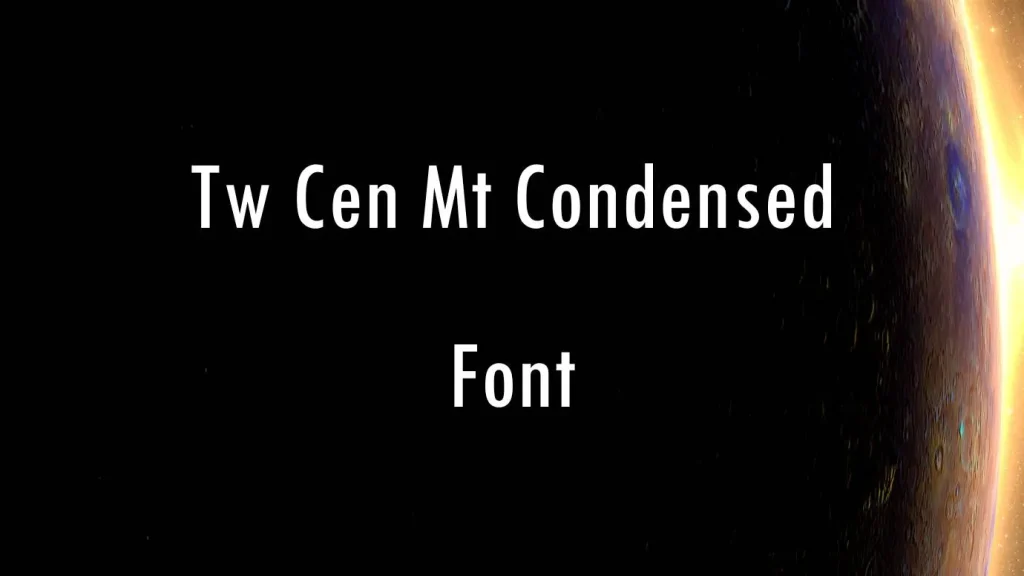
TW Cen MT Condensed Font is an impressive sans serif typeface designed by the famous type designer Sol Hess between 1936 and 1947. Hess, known for creating many other typefaces, released this font through Landston Monotype Office. Drawing inspiration from German typefaces, TW Cen MT Condensed Font features clean cuts and geometric shapes, making it a popular choice in web design.
Additionally, this typeface is available in three weights regular, bold, and extra bold, and supports a wide range of international characters, including Cyrillic, Latin, and Russian characters. Each weight of this font has 294 soft characters, including uppercase, lowercase, numbers, basic punctuation, and numerous special characters, along with 297 rare glyphs with 2014 units per em.
Arial font and Abadi Mt Condensed are the typefaces that most closely resemble this wonderful font. You can use it to make quotes, book covers, posters, logos, web headings, and more. This wonderful typeface is available for free download from our website and can only be used for personal projects.
Tw cen mt Condensed Medium Font is distinguished by its streamlined, minimalistic appearance. There are three weights in the family. This typeface is adaptable and can be used in many different design projects. You can see the features of this font, including the alphabet structure and everything else, down below.
Usages of Tw Cen Mt Condensed Font
You can use this font anywhere you want because of its distinctive appearance. It is the best font to use when designing intriguing display pieces, such as logos for your websites or brands, movie or election posters, business or invitation cards, banners, company brochures, home furnishings, fabrics, emblems, signage, branding projects, product packaging, and many more. This font is also paired with the avenir font.
With the aid of this neat sans-serif typeface, you can also produce excellent headlines and titles for your magazines, newspapers, websites, social media posts, etc. You can use it to create reports, records, project presentations, quotes, invoices, contents, letterheads, menus, and a lot more things in a business or office setting.
TW Cen MT Condensed is what typeface?
This ultra-modern sans-serif typeface was influenced by German sans-serif designs. It is available in three weights: bold, condensed, and condensed extra bold.
Who created the typeface TW Cen MT Condensed Font?
This incredible typeface offers numerous extended features and styles that make it the perfect font for a variety of designs. Sol Hess created it and made it available.